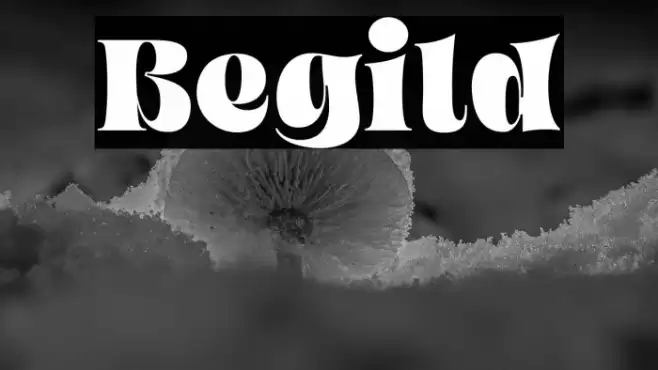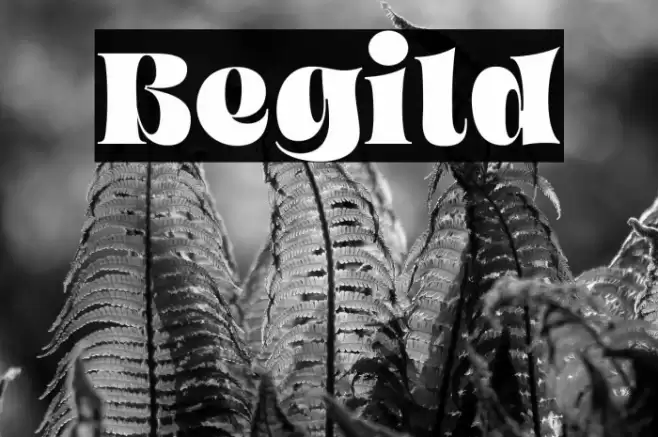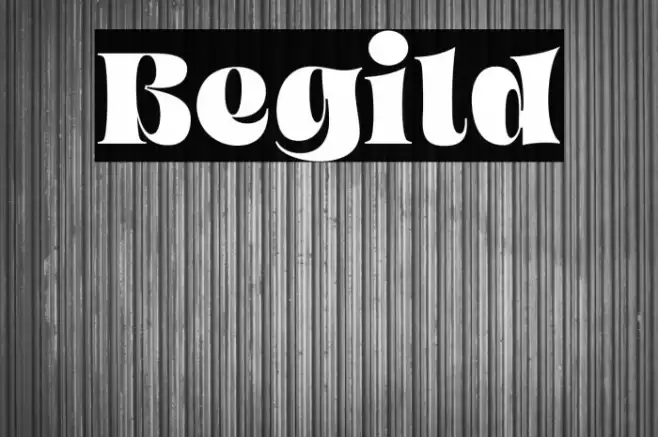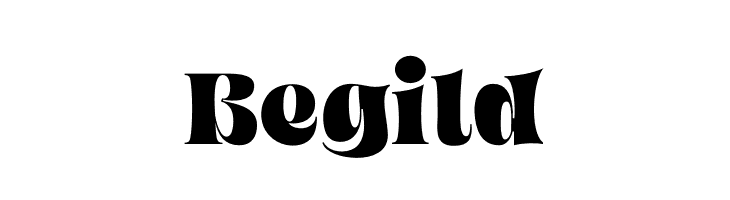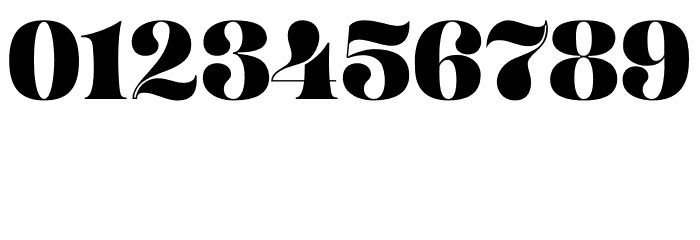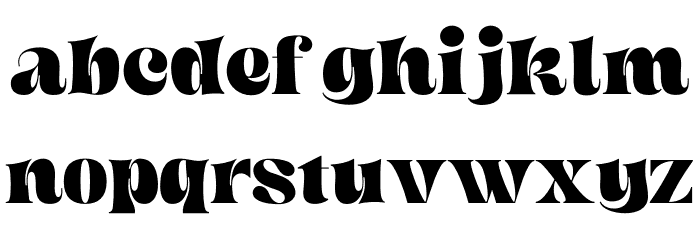
Begild Font
Begild Description
This font exhibits a bold and dramatic style with high contrast between thick and thin strokes. The characters have a unique flair, with exaggerated curves and sharp edges that give it a distinctive and eye-catching appearance. The uppercase letters are particularly striking, with a strong presence that commands attention. The lowercase letters maintain the same boldness, with a slightly playful touch in their design. Numbers and special characters follow the same stylistic approach, ensuring consistency throughout. This font is ideal for making a statement and is perfect for projects that require a touch of elegance and boldness.
A bold, high-contrast font with dramatic curves and sharp edges from Uncategorized fonts.
- Proposed Projects: Ideal for branding, headlines, posters, and any design that requires a strong visual impact.
- Contrast: High